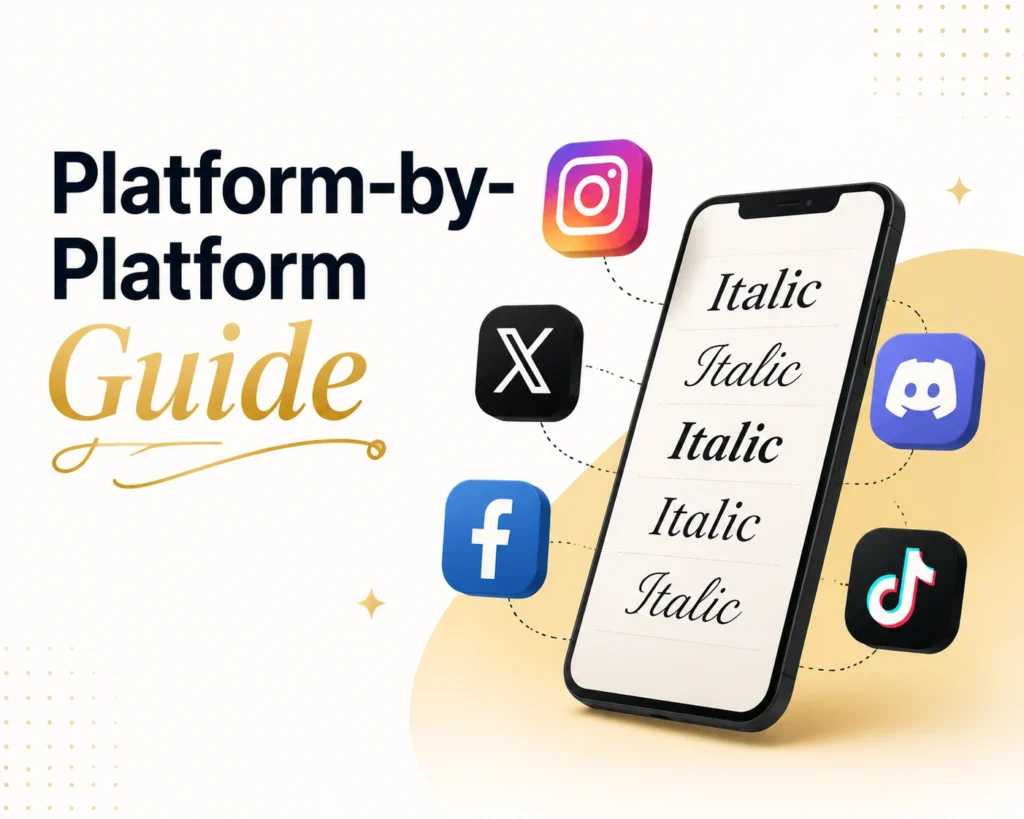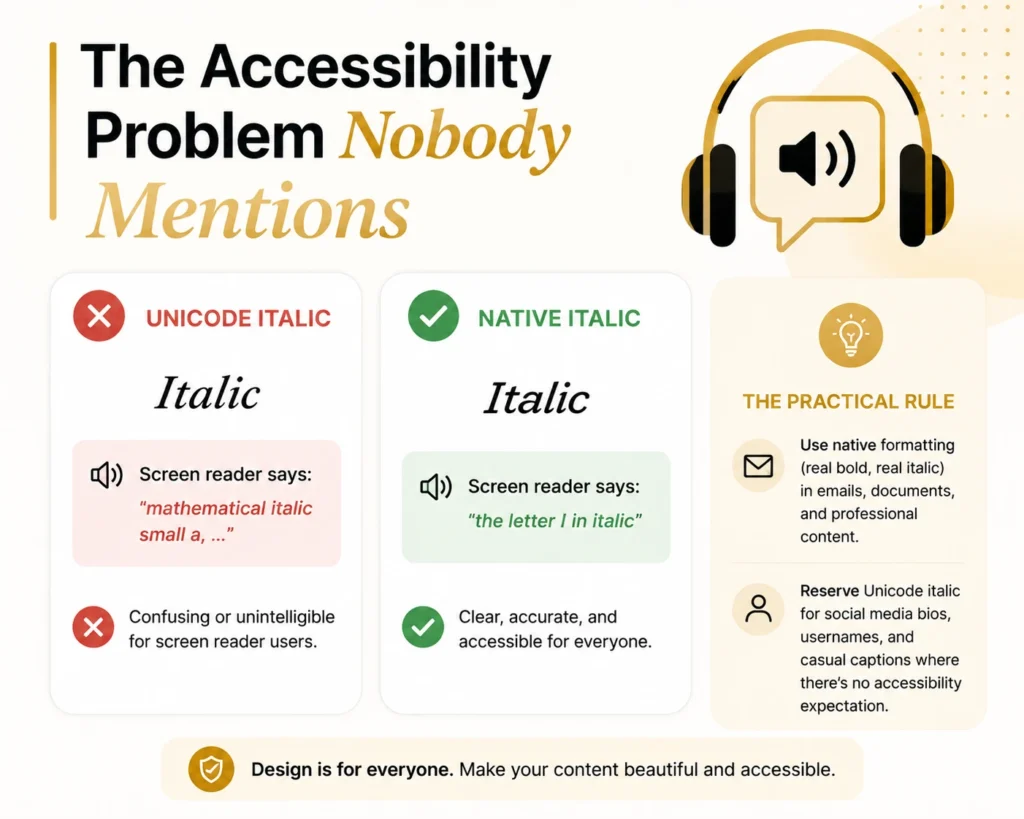
Italic Text Generator: Copy and Paste Italic Text for Instagram, LinkedIn, and More
Type your text into an italic text generator and it instantly swaps your normal letters for Unicode characters that look slanted everywhere, even on apps like Instagram and Discord that don’t let you press Ctrl+I. You copy the result and paste it anywhere text boxes accept plain text. No app, no login, no font installation.
That’s the short version. Here’s everything else you actually need to know before you paste it somewhere it won’t work right.
An italic text generator converts regular letters into special Unicode characters from the Mathematical Alphanumeric Symbols block that render as italic on any platform, because they’re technically a different set of characters, not a formatting style. This works on Instagram, Twitter/X, Discord, and Facebook. It does not work on numbers, punctuation, or non-Latin scripts like Arabic or Chinese, and it’s a poor fit for LinkedIn and WhatsApp for reasons we’ll get into below.
Why Ctrl+I Doesn’t Work on Instagram or Discord
Here’s the part almost nobody explains clearly. When you hit Ctrl+I in Word or Google Docs, you’re not changing the letters. You’re applying a style tag that tells the document “render this in italic.” The letter A is still the letter A behind the scenes.
Social media text boxes don’t support style tags. They only accept plain text, so there’s nothing for Ctrl+I to attach to. An italic text generator gets around this by swapping the letter A for a completely different character, π΄, that happens to look italic. Your device doesn’t apply a style. It just displays whatever character you pasted, and that character is permanently slanted no matter where it goes.
This is also why italic Unicode text survives copy-paste between apps. It’s not formatting that can get stripped. It’s just text.
How to Use an Italic Text Generator
That’s the whole process. No formatting menu, no export, nothing to download.
Serif Italic vs. Sans-Serif Italic: Which One Should You Use
Most generators dump out one italic style and call it done. There are actually two distinct looks, and picking the right one matters more than people realize.
Serif italic (πΌπ‘ππππ) has the little feet and flourishes you’d see in a printed book or newspaper. It reads as classic, literary, formal.
Sans-serif italic (ππ΅π’ππͺπ€) is cleaner and more geometric, closer to what you’d see in a modern app interface.
| Use case | Better choice | Why |
| Book or movie title in a caption | Serif italic | Matches traditional print convention for titles |
| Instagram or TikTok bio | Sans-serif italic | Looks native to the platform’s modern UI |
| Citation or quote | Serif italic | Signals “formal reference” the way print does |
| Username or display name | Sans-serif italic | Cleaner at small sizes |
| Aesthetic or moodboard captions | Either, by feel | Pick whichever matches your page’s existing style |
If you’re italicizing a book title, a film title, or a foreign-language phrase, like you would in academic writing, serif is the closer match to convention. For bios, captions, and casual social posts, sans-serif tends to look more at home.
Bold Italic Text: When to Combine the Two
Bold italic (ππ©ππ‘ππ) stacks two emphasis signals at once. Use it sparingly, the same way you’d use all-caps. It’s good for:
Bold italic on a full sentence is harder to read than either style alone, especially on small phone screens. Save it for two to five words, not paragraphs.
How Long Should Italic Text Be?
This is the one rule nobody puts in writing, and it’s the most practical tip in this article: italic Unicode text works great for short phrases and gets genuinely hard to read past a sentence or two.
The Mathematical Alphanumeric Symbols block wasn’t designed for body text. It was built for math notation. At one to eight words, your eyes adjust fine. Stretch it across a full paragraph and the slant starts to fight your brain’s normal letter recognition, especially at smaller font sizes on mobile.
Use italic Unicode for bios, single-line captions, usernames, and short callouts. For anything longer, like a multi-sentence Instagram caption, stick to regular text and let italic do its job as an accent, not the whole outfit.
Platform-by-Platform Guide
This is where most italic text generator pages stop short. They tell you it “works on social media” and leave you to figure out the rest. Here’s what actually happens on each platform.
| Underline | Links, single-word emphasis in specific contexts | General emphasis (often confused with a hyperlink) |
| Bold italic | Maximum emphasis in a short phrase | Anything longer than a few words |
In formal writing, italic has specific jobs: titles of books and films, foreign words and phrases, and a character’s internal thoughts in fiction. On social media, the rules loosen, but the instinct should stay the same. Italic signals “pay slightly closer attention here,” not “this is the most important thing on the page.” That’s bold’s job.